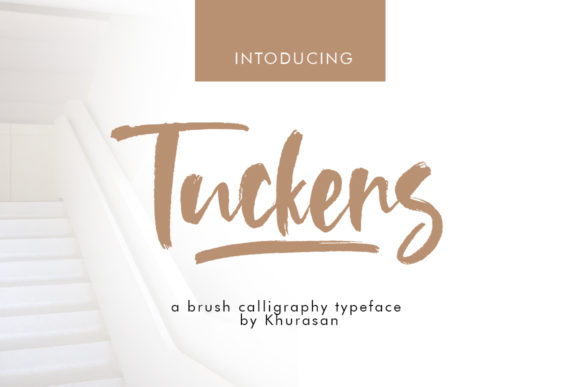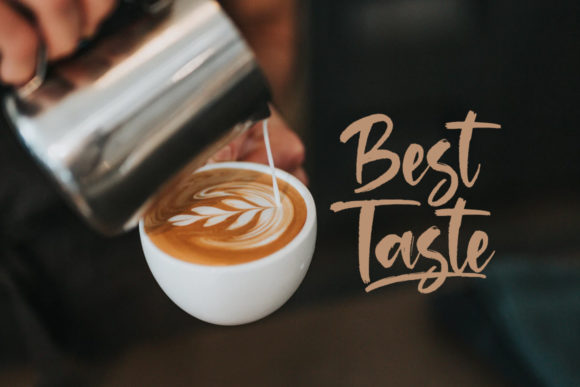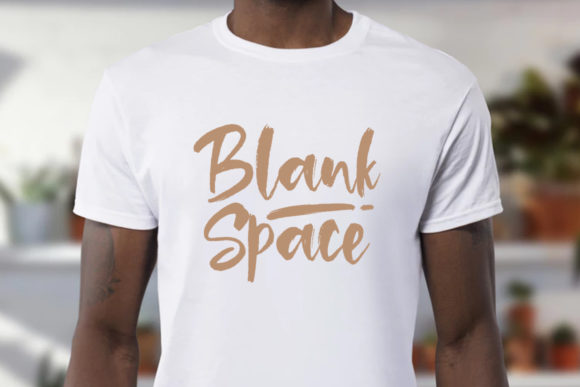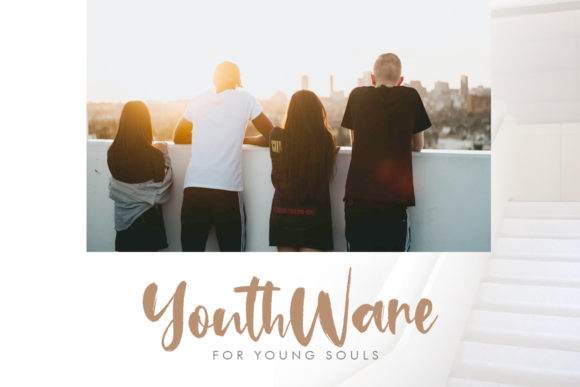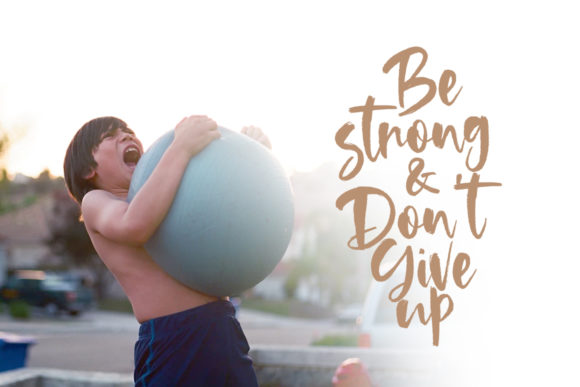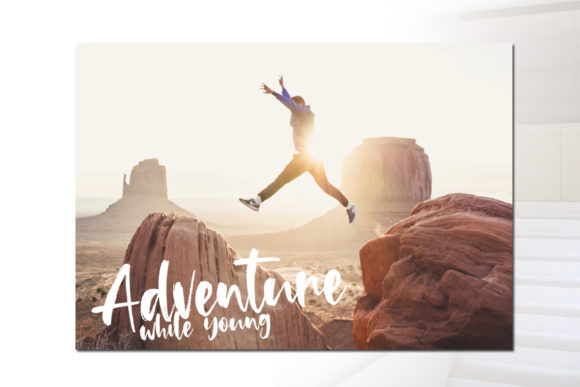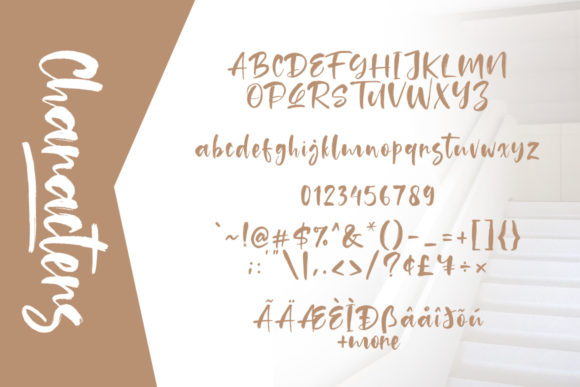
Tuckers Font
About Tuckers Font
The Tuckers is a fresh handwritten font brush with an elegant and vintage feel. It will add a retro touch to any design project.